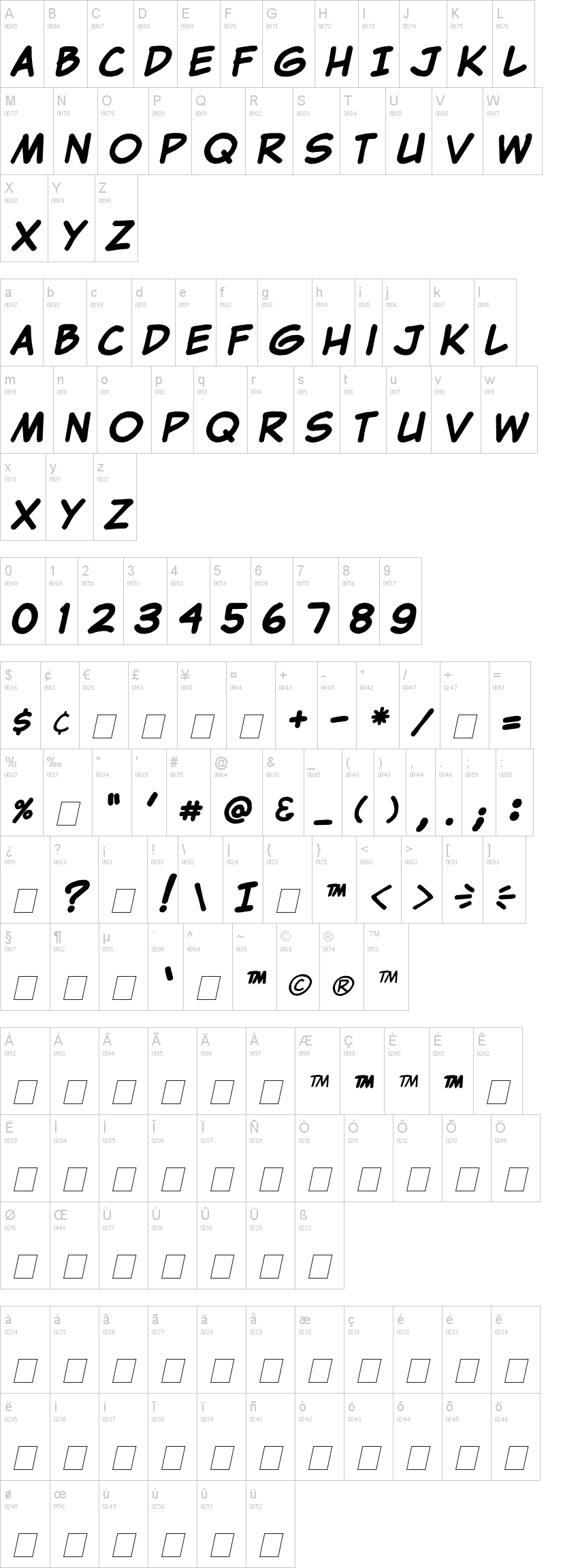
clem-italic.otfclem-bold.otfclem-cbold.otfNote of the authorAnother free font from JibbaJabba Fonts! This is another comicbook lettering font. This one was inspired by the lettering in DC/Veritgo's Preacher comics (lettered by Clem Robins... thus the name).